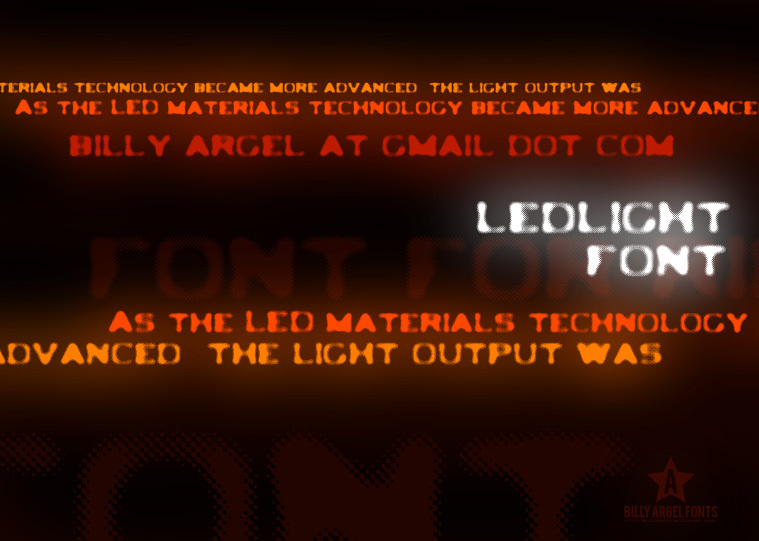
Ledlight by Billy Argel is a free graffiti display font with swollen, tightly packed letterforms. Its broad shapes pinch sharply at joins and open into soft, irregular curves. A coarse halftone texture flickers around the edges.
Club flyers and streetwear graphics gain the impact of a spray-painted tag, yet the rounded distortions also suit playful album covers. Skate merchandise and youth event posters can turn the letters into a central graphic motif, with the dotted fringe echoing screen print grain.